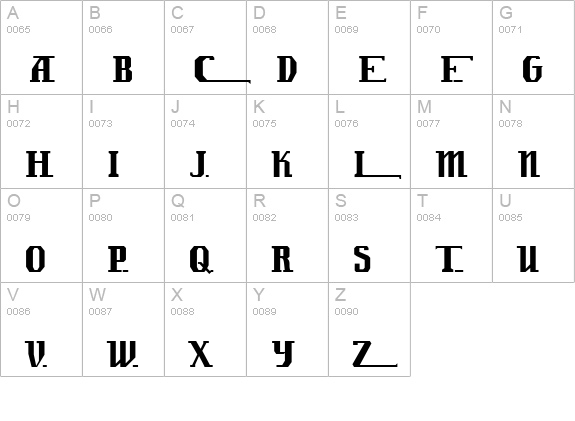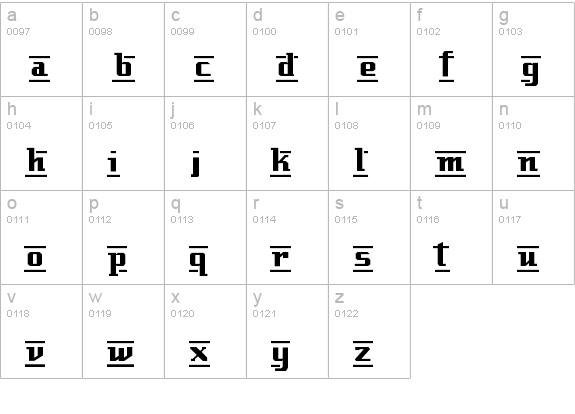
Lambrettista Font Details
Introducing Lambrettista, a stunning font that effortlessly combines classic elegance with a modern twist. This versatile typeface will elevate any design project, from logos and branding materials to invitations and editorial layouts. With its clean lines and refined curves, Lambrettista adds a touch of sophistication to any design. Lambrettista is a free font that captures the essence of timeless beauty. Its carefully crafted letterforms and attention to detail make it a true gem in the world of typography. Whether you're working on a vintage-inspired project or a contemporary design, this font will bring a sense of style and elegance to your work. What sets Lambrettista apart is not only its exquisite design but also its availability. This font is freely available to download at FontsMarket.com, making it accessible to designers and creatives around the world. With just a few clicks, you can add this exceptional typeface to your font library and start creating captivating designs. With its wide range of weights and styles, Lambrettista offers endless possibilities for creative expression. From thin and delicate variations to bold and impactful options, you can easily adapt this font to suit your specific design needs. It's the perfect companion for crafting eye-catching headlines, elegant body text, or memorable logos. The versatility of Lambrettista extends beyond its aesthetic appeal. This font is also highly legible, ensuring that your message is effortlessly communicated to your audience. Its clean, crisp lines ensure optimal readability across various platforms and sizes, whether it's on print materials or digital screens. So why not elevate your design projects with Lambrettista? Download this exceptional font today at FontsMarket.com and unlock a world of endless creativity. Let Lambrettista be your go-to font for creating stunning designs that leave a lasting impression. Embrace the elegance, embrace the freedom to create with Lambrettista.